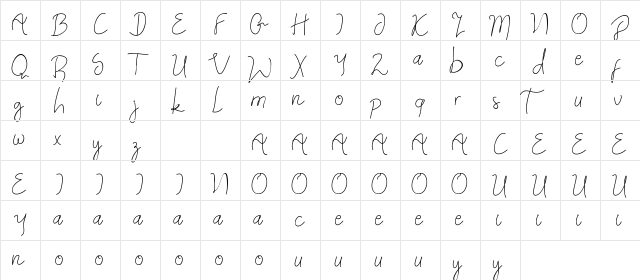
Jazz One Demo Script Regular
| Foundry | Edric Studio |
| Designer | Yasri Ainun & Suci Anita |
Design Context for Jazz One Demo Script Typeface
Jazz One Demo Script brings a calligraphic fluidity to the page — its connecting strokes and expressive curves give it an unmistakably human quality.